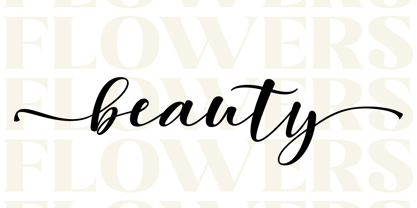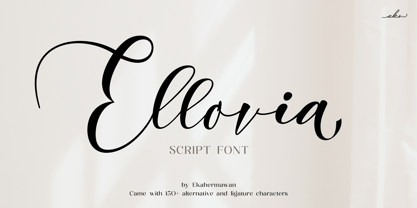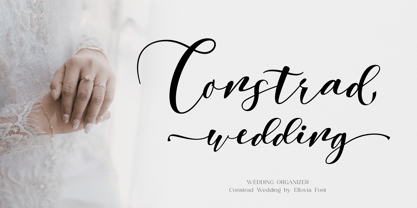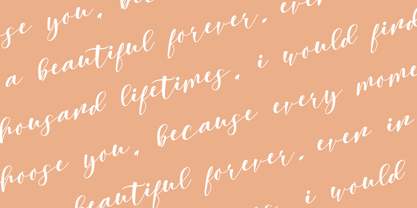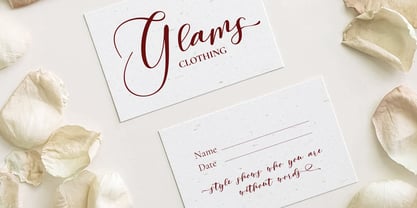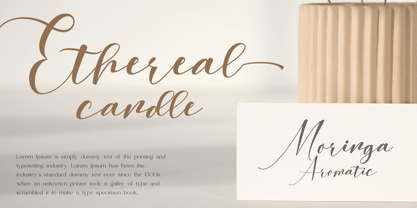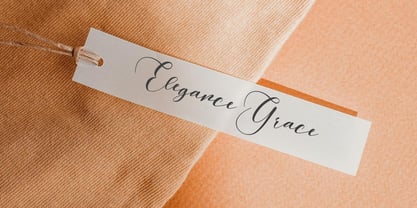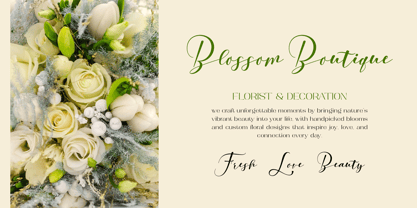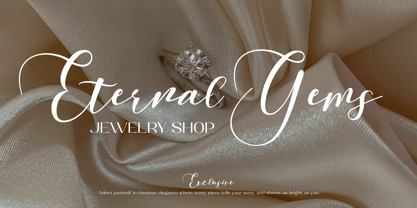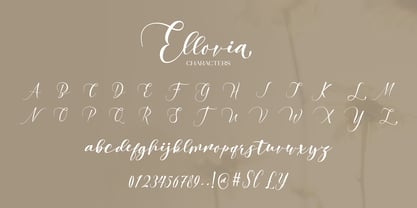
Ellovia
by Ekahermawan
The Ellovia Font Family was designed by Putu Eka Hermawan and published by Ekahermawan. Ellovia contains 1 styles. More about this family
Introducing Ellovia is A Stylish Script Font for Every Occasion. Unleash your creativity with Ellovia, a beautiful script font designed for versatility, elegance, and modern flair. Whether you're crafting a wedding invitation, a product label, or a brand logo, this hand-lettered font adds a personal touch that’s both sophisticated and approachable. But that’s not all—Ellovia comes packed with endless possibilities! With an abundance of alternates and ligatures, you can customize every design to perfection. Every letter is alive with personality and ready to transform your work into something truly unique. If you’ve been searching for the perfect script font that feels authentic but also refined, Ellovia is your answer. The font’s flowing, organic style is brought to life with a generous set of alternates and ligatures that ensure your designs are never limited to a single look.